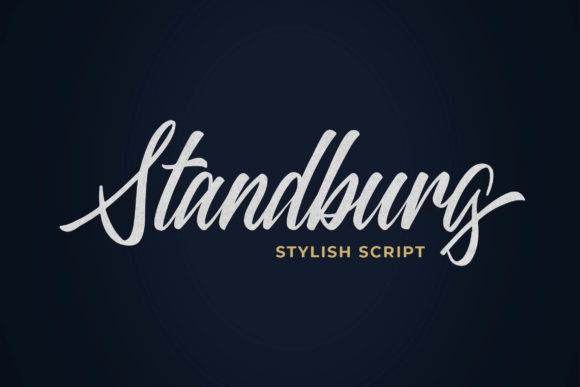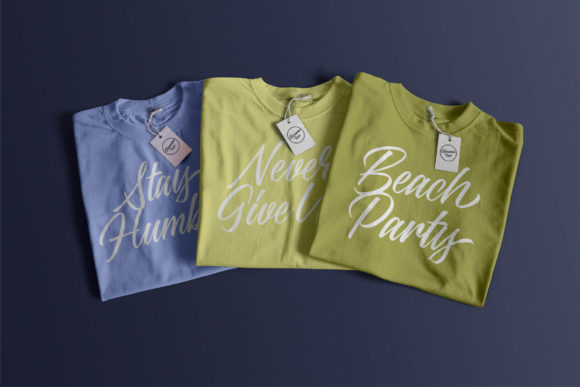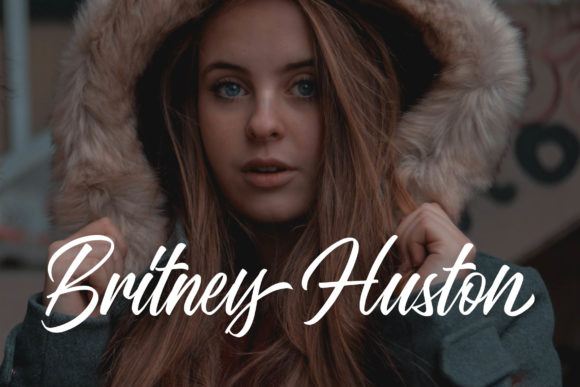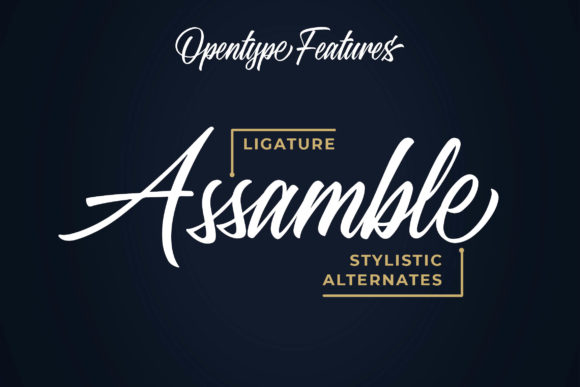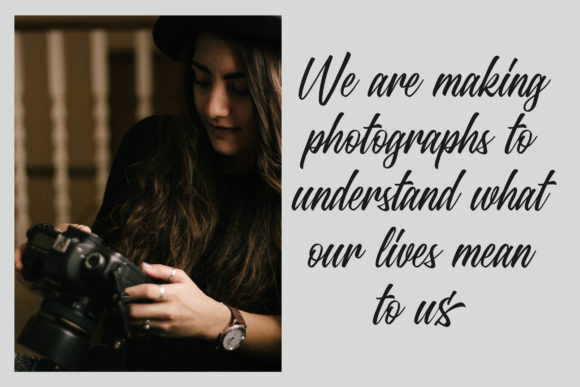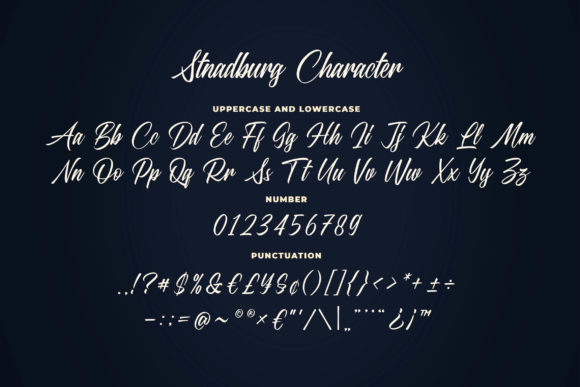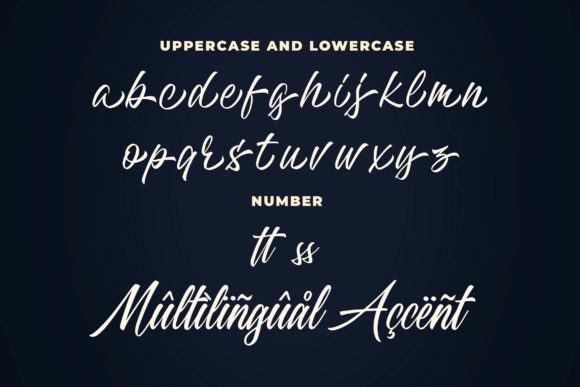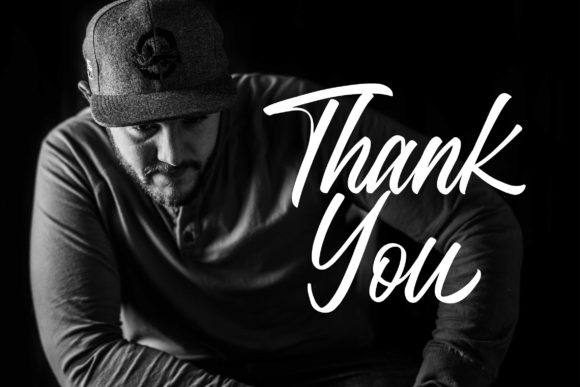
HomeScript FontsStandberg Font Script Fonts Standberg Font FacebookXPinterestWhatsApp Standberg Font Poster 2 Standberg Font Poster 3 Standberg Font Poster 4 Standberg Font Poster 5 Standberg Font Poster 6 Standberg Font Poster 7 Standberg Font Poster 8 About Standberg Font Standberg is a clean and modern script that feels incredibly luxurious. Get inspired by its unique charm! DOWNLOAD ON CREATIVE FABRICAThis font is sold and delivered by Creative Fabrica. Font Canyon may earn a commission if you buy through this link. People also explored Sticknote Font Meillyne Font Muinerve Semi-Bold Font BLAZE Font Honey Punch Script Font Deliciouxe Font Metropolis Script Font Montana Font Highland Font 358 0 TagsStandberg Font Previous articleHoney FontNext articleGotre Font LEAVE A REPLY Cancel reply Comment: Please enter your comment! Name:* Please enter your name here Email:* You have entered an incorrect email address! Please enter your email address here Website: Save my name, email, and website in this browser for the next time I comment. Personal Use Free Edo SZ Personal Use Free Read more about this font Jilliant Personal Use Free Read more about this font Archipellago Personal Use Free Read more about this font Drip October Font Personal Use Free Read more about this font BLOG How to Install and Use Fonts on Windows, macOS, and Web Projects How to Install and Use Fonts on Windows, macOS, and Web Projects Fonts are a crucial part of design and branding. Whether you’re designing a... Fonts That Capture the Spirit of New York City To increase your work productivity, choose the most readable fonts. Elegant Wedding Invitation Fonts – Handwritten & Script Fonts